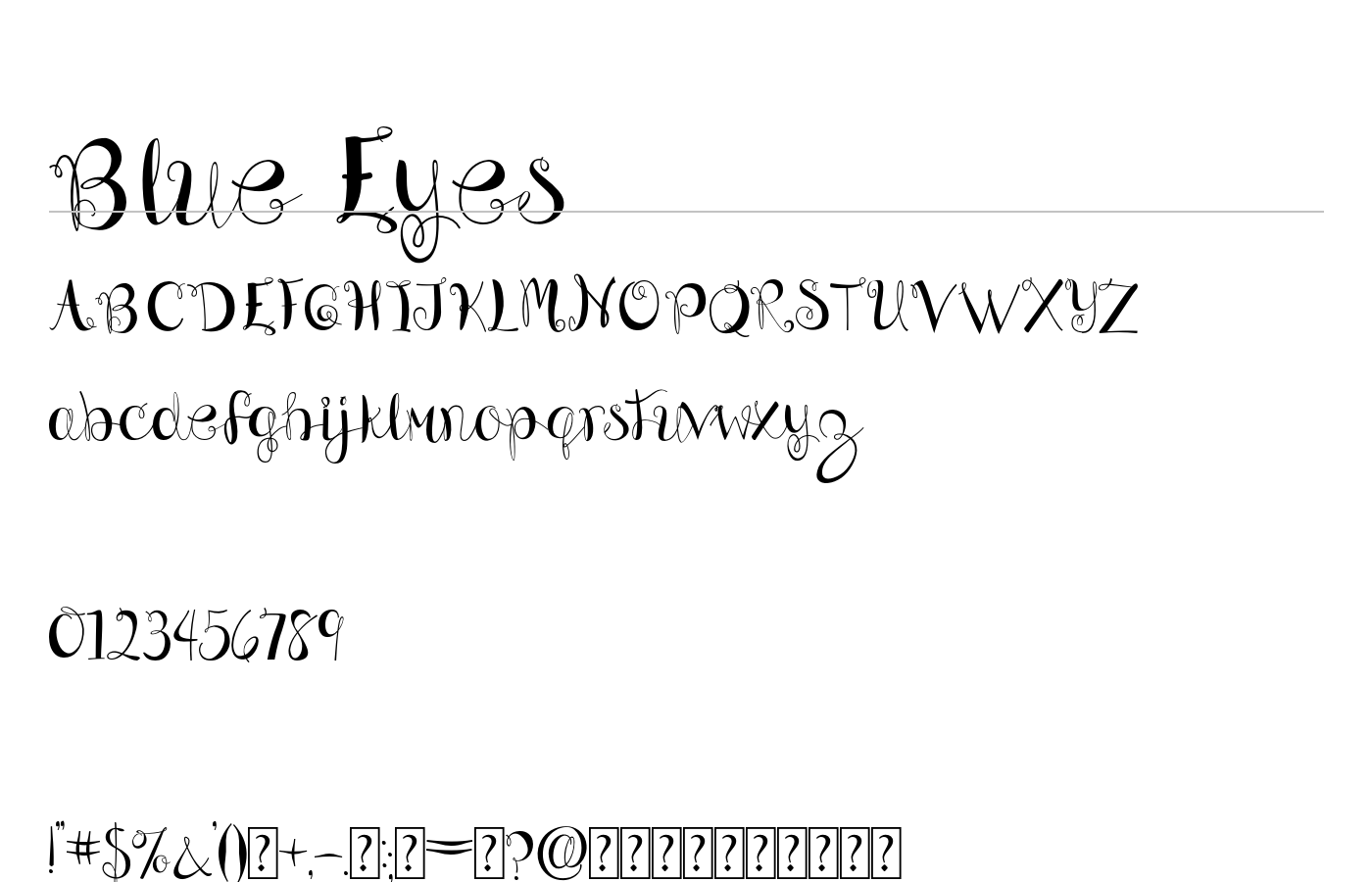
Blue Eyes Font is a whimsical, decorative script with thin, elegant strokes and playful curls that give it a charming, hand-drawn feel. Its lightweight, flowing letterforms make it perfect for creative projects needing a touch of femininity and sophistication, such as invitations, branding, and artistic headlines. This font works best in display uses where its intricate details can shine without sacrificing readability.
Blue Eyes Font
About Blue Eyes Font
| Font family | Blue Eyes Font |
| Designer | Rusdin |